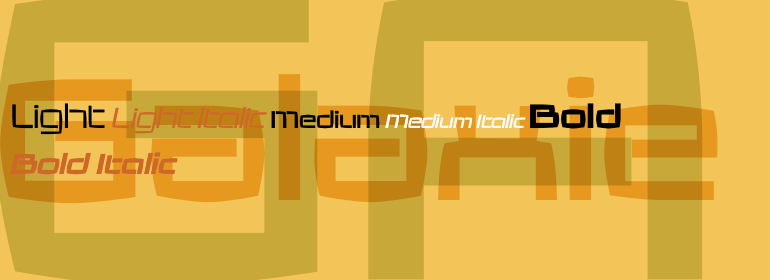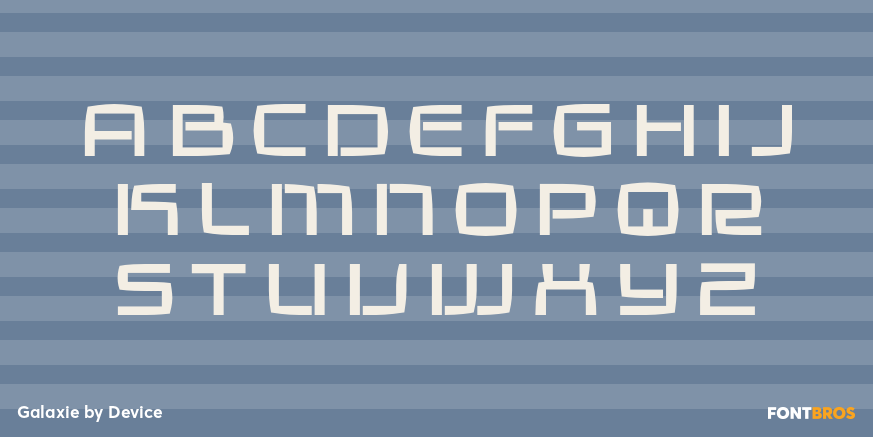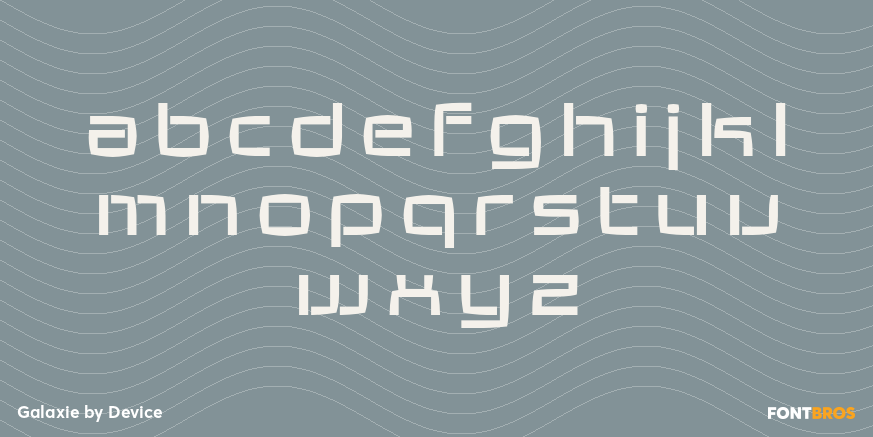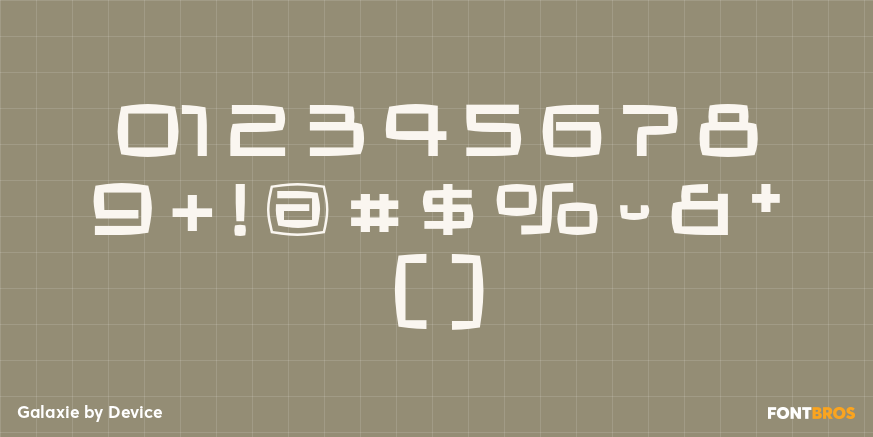
Galaxie
Font Family by Device Fonts
Galaxie is a futuristic sans serif family with a sleek, stylized voice that feels equal parts clean and space-age. Its sharp, forward-looking character makes it a strong choice for designs that want a modern, technical, or sci-fi edge without losing clarity.
With 6 styles included—Light, Medium, and Bold, each with matching italics—it gives you enough range to build hierarchy while keeping a consistent visual tone. Use it for logos, posters, branding, packaging, apparel graphics, and other display-driven work where a distinctive, high-impact sans serif can set the mood quickly.
Created by Device, this family is especially well suited to projects that lean into futuristic, special effect, and contemporary design language. If you want letterforms that feel streamlined and imaginative, this set brings a polished, directional look to the page.